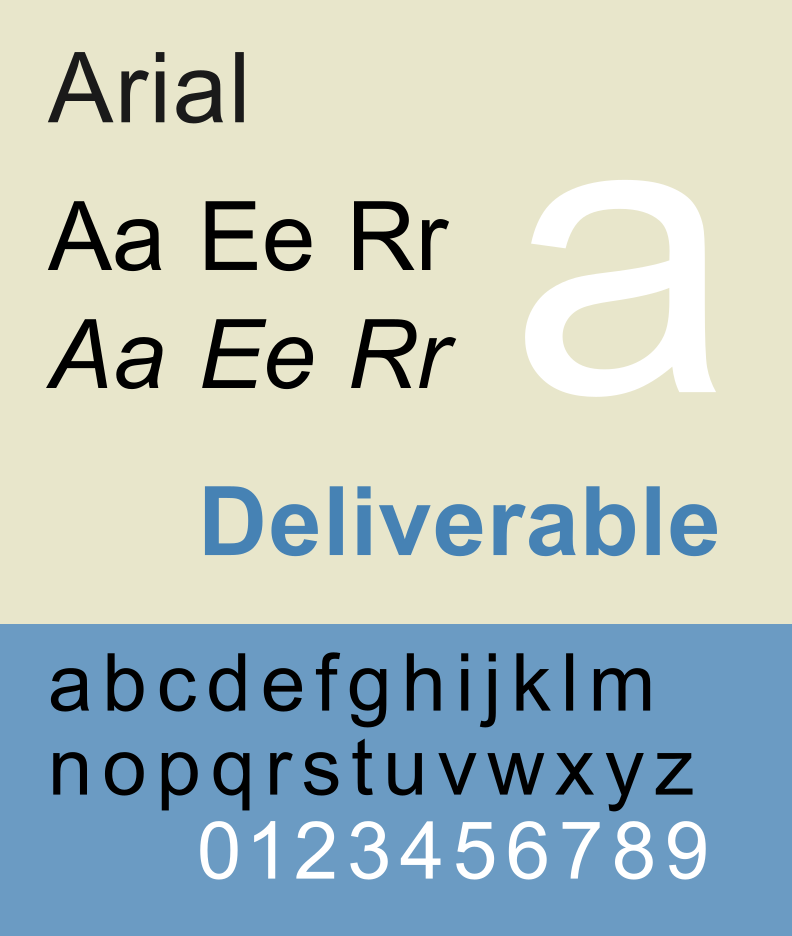
The best fonts for business documents affect the visual appearance of the document and facilitate the reader’s comfort when understanding its contents. The main characteristic of fonts for formal documents is usually a clean look.
This means that there are no decorative accents that are too flashy. The use of appropriate business fonts can build a professional and credible impression of the sender. Not all fonts are suitable for business documents.
Below are the 7 recommendations for the best fonts for business documents. If readers use these fonts, they will find it easier to understand all the information contained in the document, from the beginning to the end.
Arial font is one of the best fonts for business documents. The appearance of this font has a straight and clean letterform. Its minimalist nature makes this font ideal for various business documents.
This font is available on almost all operating systems and word processing software, including official letters, memos, and reports. Thus, the consistency of the document will not change even if it is opened on different devices.
The official font recommendation for official letters is Times New Roman. This classic serif font is synonymous with official and academic documents. The small lines at the end of the letters produce a serious and traditional atmosphere.
In use, this font is still easy to read even though it uses a small size. Therefore, Times New Roman is ideal for official documents that contain a large amount of text.
Cambria’s visual appearance is more modern than Times New Roman’s. Document writers must also prioritise the use of fonts and pay attention to the font size for official letters.
This font design remains easy to read even in digital and printed form. Cambria is the best fonts for business documents with a large number of pages, such as annual business reports and business analysis documents.
Calibri is a formal font in Word, often used for official letters and presentation documents. Its design accentuates the impression of smooth, lunar, and modern. It looks clean and is easy to read by document readers.
Calibri font has been the default Microsoft Word font since 2007. Many business people choose to use this font because of its wide availability. Thanks to this font, document exchange becomes easier without any formatting glitches.
Amuttix fonts are here to answer the needs of businesses that require an elegant, clean, and strong look. This font has four different variants: regular, outline, shadow, and light. Of course, these font variants must be placed in the right place and position. So that the professionalism of the business can be seen.
This type of font not only offers an attractive visual appeal but also facilitates the needs of the reader, especially with regard to business documents and other official documents. It’s not wrong for this font to be included as one of the best fonts for business documents.
This font design uses a serif style with geometric shapes. Compared to previous business fonts, this font’s appearance is unique and modern. By utilising this font, the appearance of the document becomes more special.
In terms of use, Puntodewa Font is suitable for strengthening business visual identity, especially for branding documents such as company event invitations, product promotional materials, and letterheads.
Similar to the previous font, Amenable Font is ideal for various business branding documents, from product packaging to websites, banners, and company advertisements.
This font’s appearance conveys an efficient and modern impression. Its good readability level allows it to be used for various media. The font style is simpler and displays a professional image.